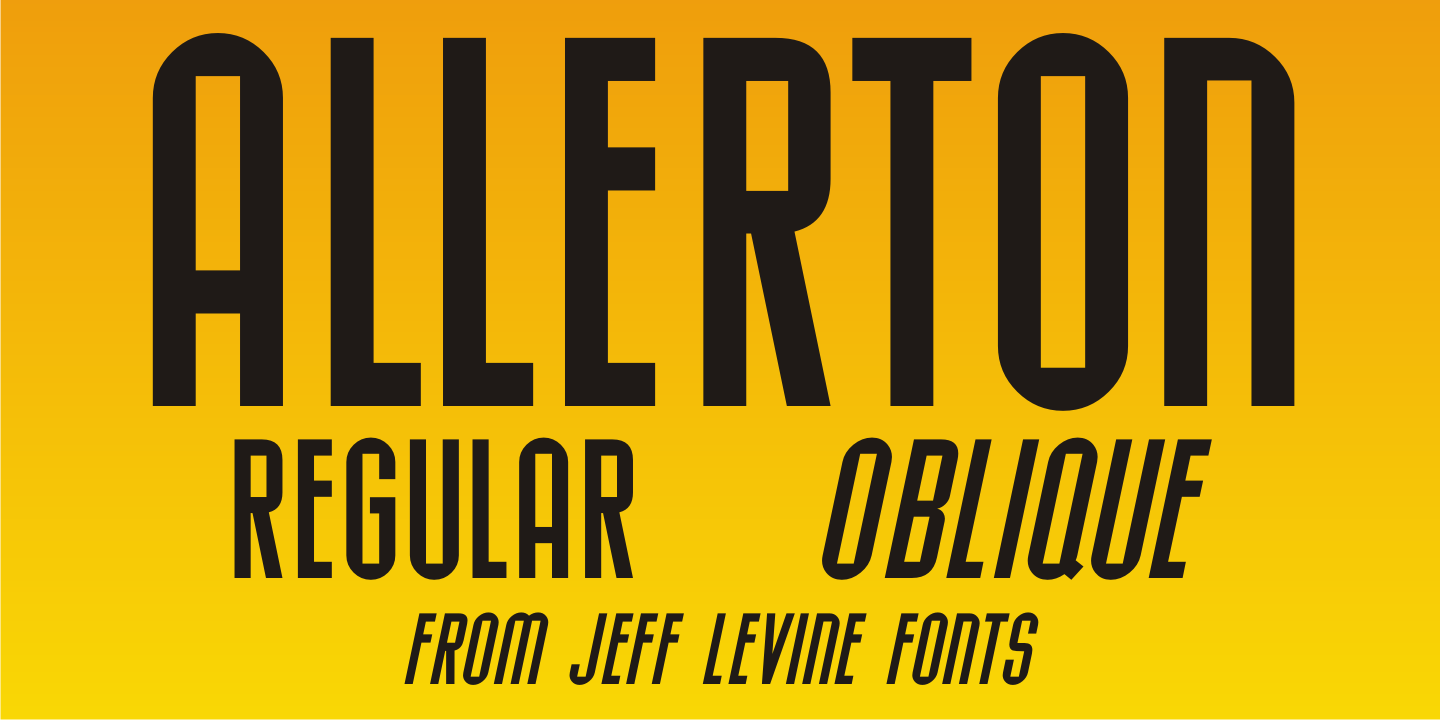
Designed by Jeff Levine, Allerton JNL is an art deco and display sans font family. This typeface has two styles and was published by Jeff Levine Fonts.
Presenting a condensed Art Deco sans serif font with rounded corners and squared inner lines, based on the hand lettered title on the cover of the sheet music for 1944’s “Just A Little Fond Affection”.
Allerton JNL is available in both regular and oblique versions, and was named after a neighborhood in the Bronx, New York.